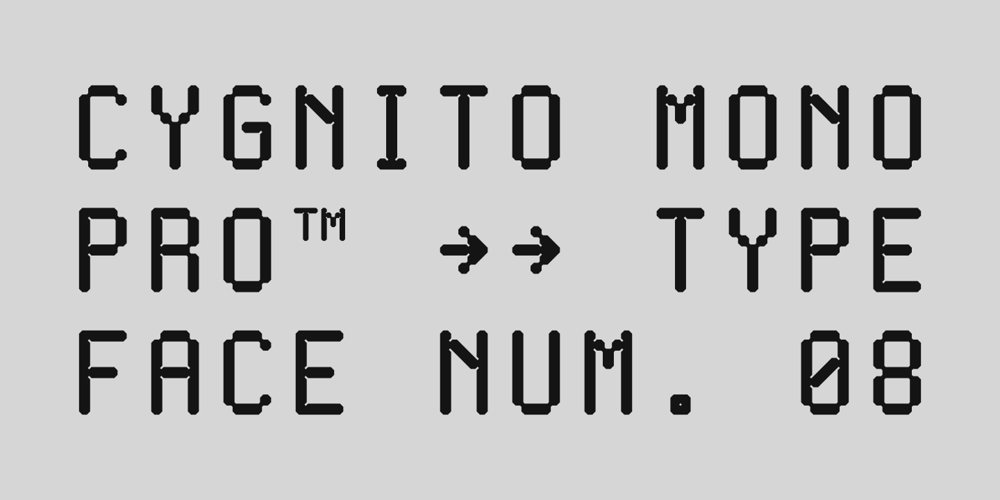
Cygnito Mono Pro
Cygnito Mono Pro font
Cygnito Mono Pro Font Family was designed by Radinal Riki and published by ATK Studio. Cygnito Mono Pro contains 36 styles and family package options. Cygnito Mono Pro™ is a monospaced type design built with 3 shapes: circle (rounded), squircle (semi rounded) and octagonal structure. This pro version come with 4 styles with 3 weights each. Inspired by industrial design and modernism. This font built with modular architecture that’s ideal for programming applications and technology-driven design projects. It’s also well suited to design projects centered on mathematics, science, computers, and UI/UX applications.